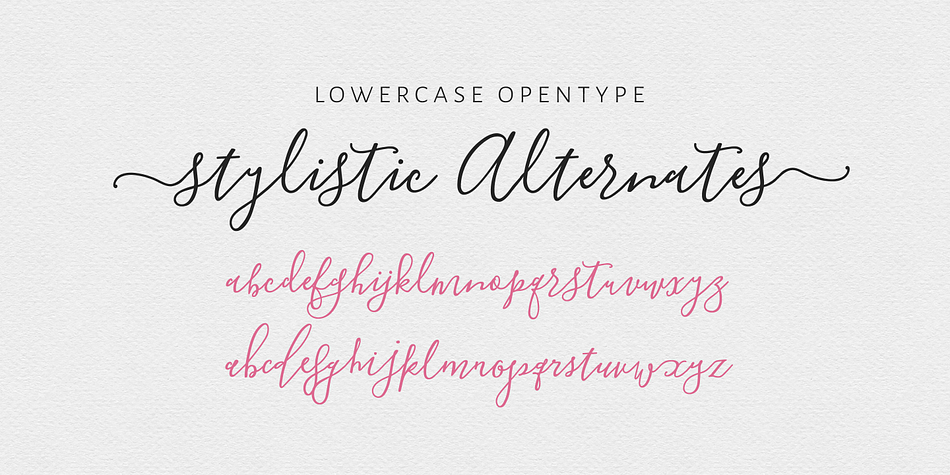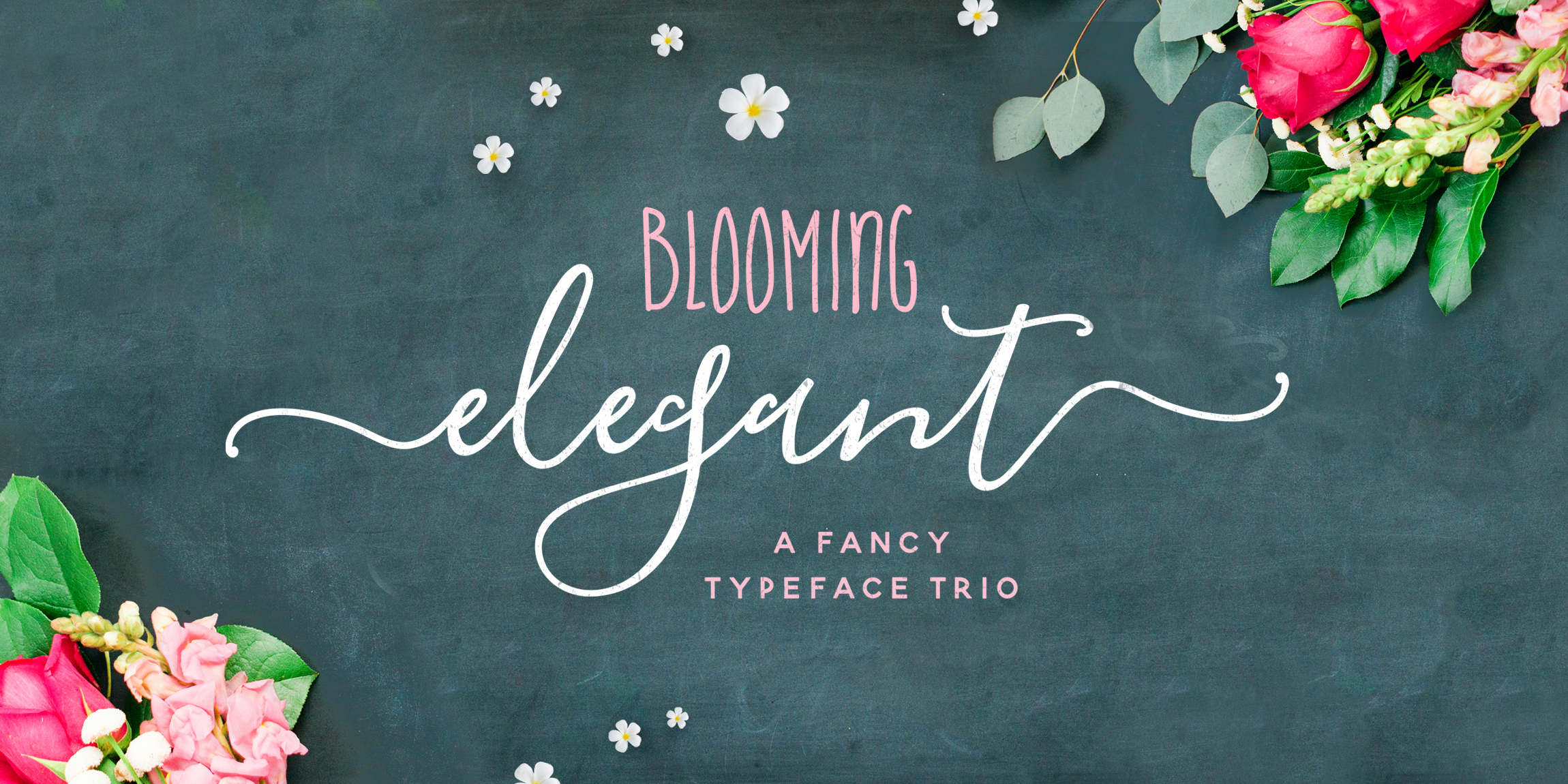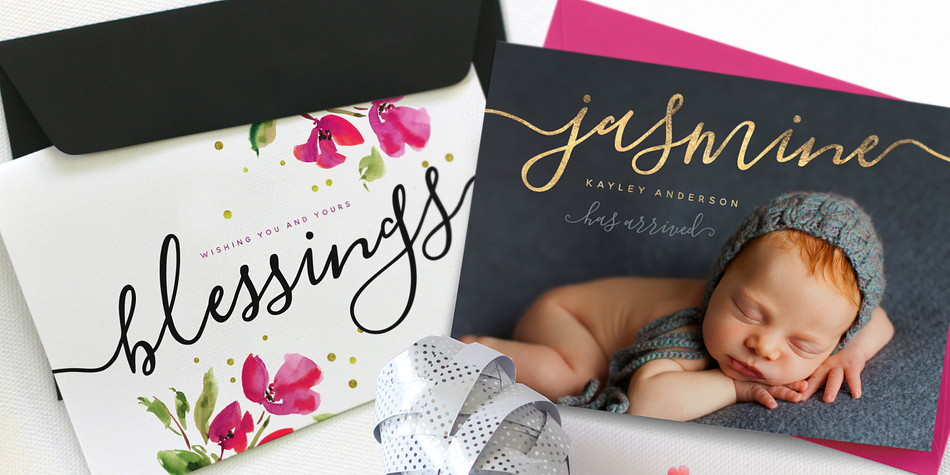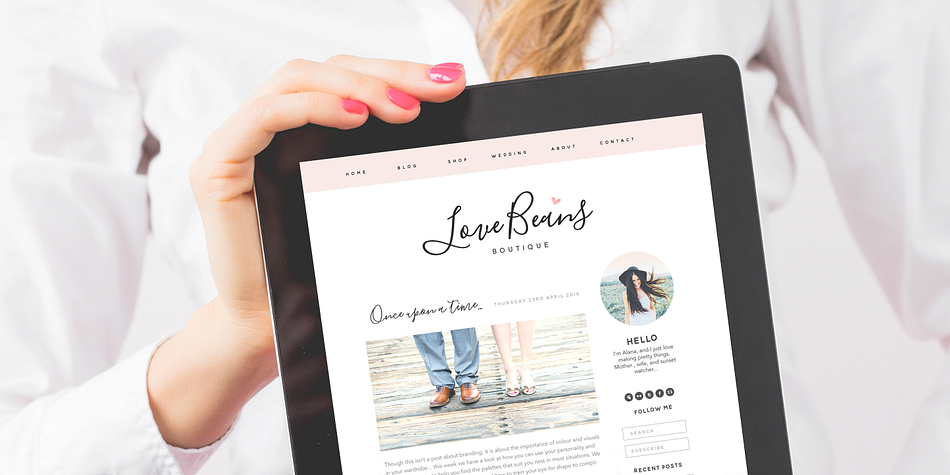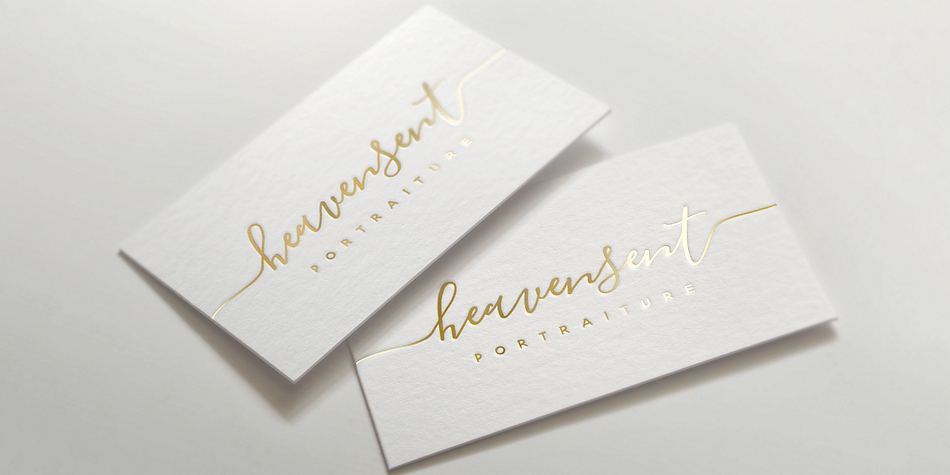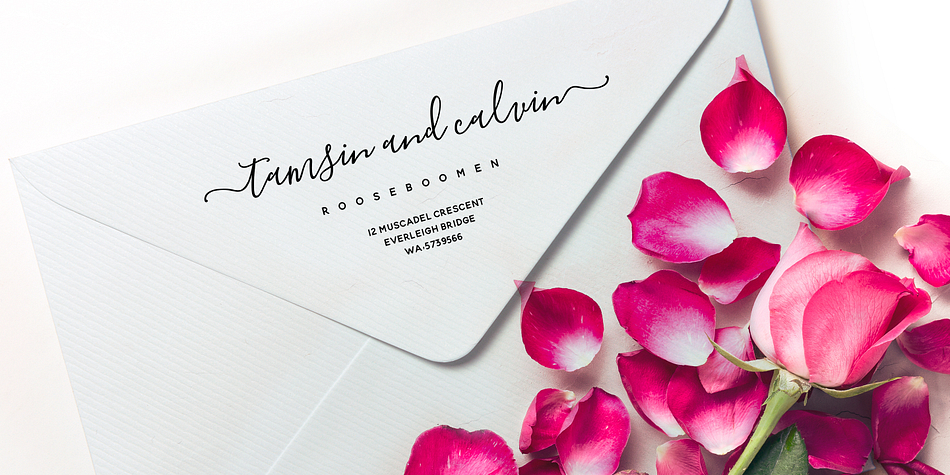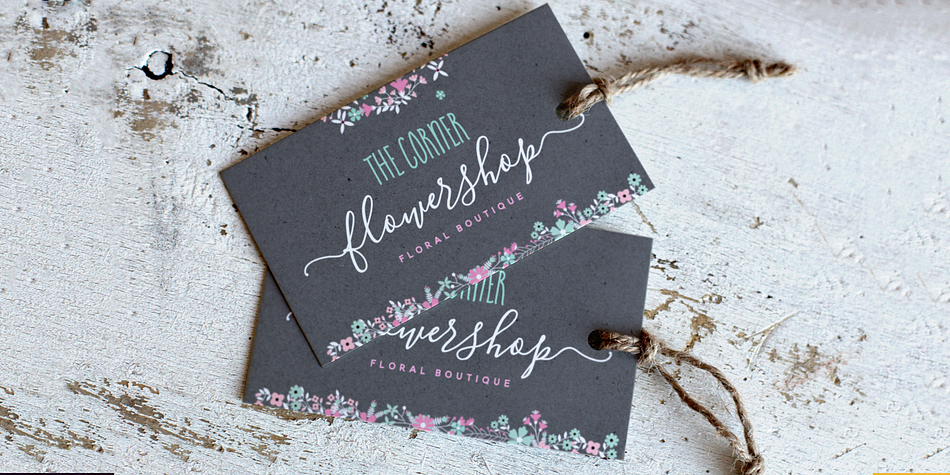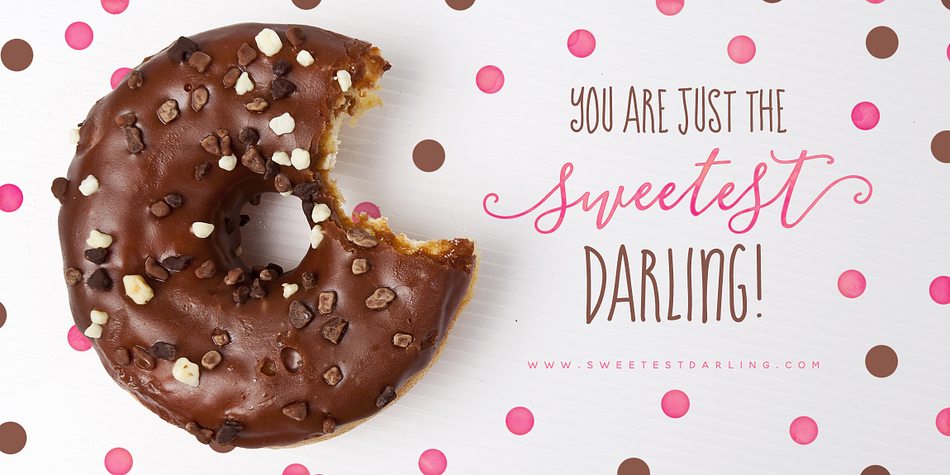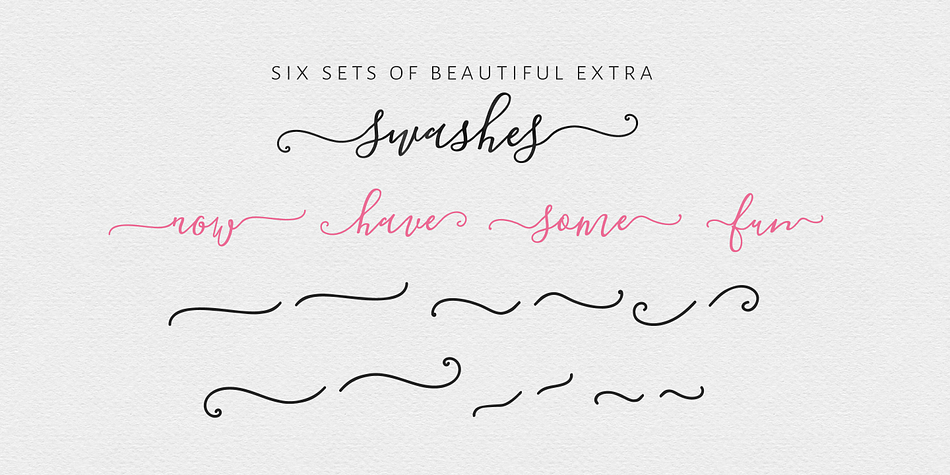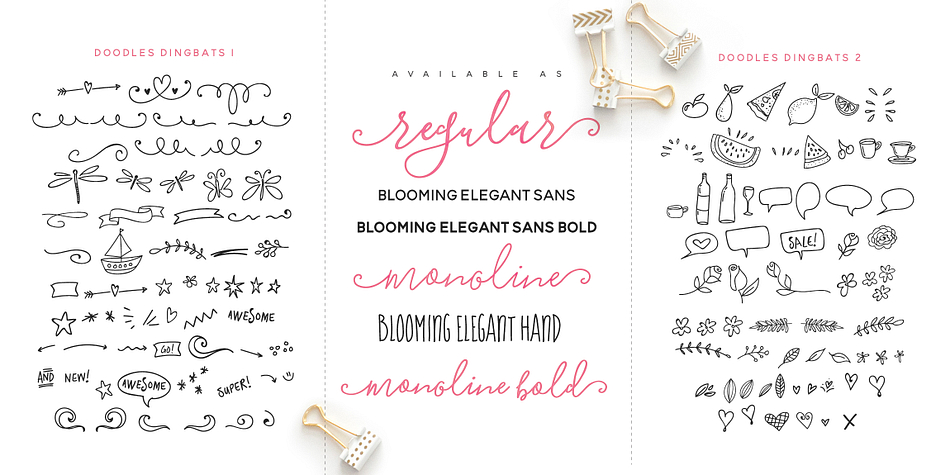
Designed by Nicky Laatz, Blooming Elegant is a multiple classification font family. This typeface has eight styles and was published by Nicky Laatz.
Blooming Elegant Script Font is a hand-lettered modern calligraphy script with a playful yet elegant nature. It comes in 3 variants : Regular, Mono-line, and Mono-line Bold.
The script fonts include Opentype Stylistic Alternates for all lowercase letters, and a selection of Ligatures to add some authenticity to your designs.
Included alongside the script fonts, are two companion sans fonts : a neat and sturdy uppercase sans font for more formal-natured designs, and a jaunty, playful uppercase handwritten sans for more casual designs.
Also included is a handy set of over 120 lovingly-drawn doodles is also included as 2 separate dingbat fonts.